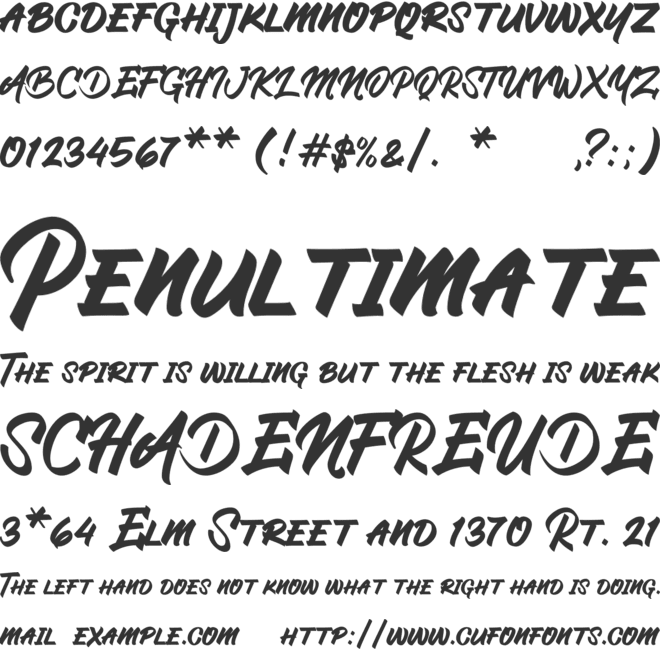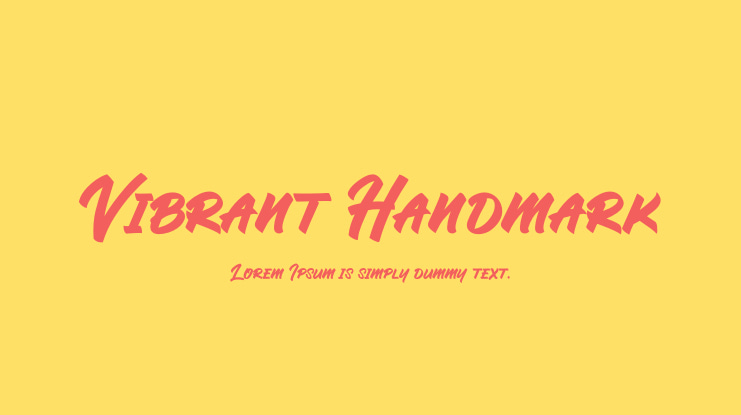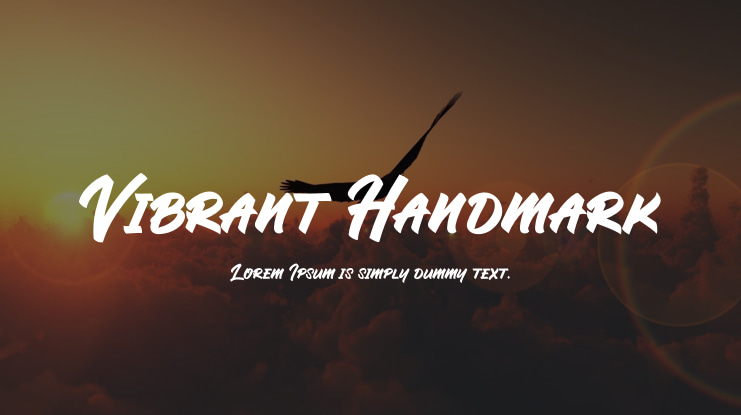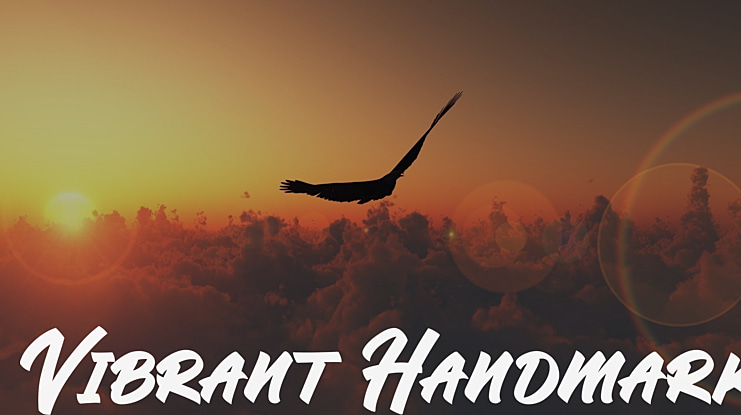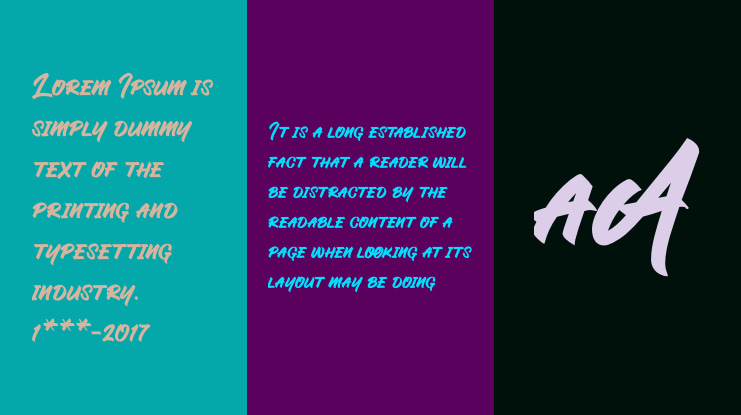
Vibrant Handmark Font Family
Introducing "Vibrant Handmark," an enchanting typeface that exudes a vibrant energy and creative flair. This captivating font is meticulously crafted in a cursive style, drawing inspiration from the strokes of a vibrant marker. It perfectly encapsulates the spontaneous spirit of hand-drawn designs. With its flowing lines and expressive curves, "Vibrant Handmark" injects a playful and authentic touch to your projects. Whether you are designing attention-grabbing headlines, creating logo marks, or crafting engaging visual content, this font's bold and vivacious character will effortlessly infuse your creations with a sense of lively charm.